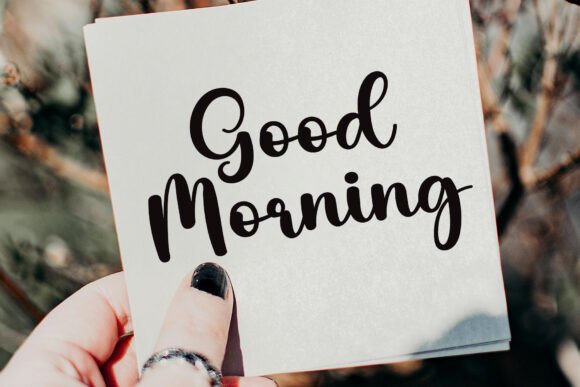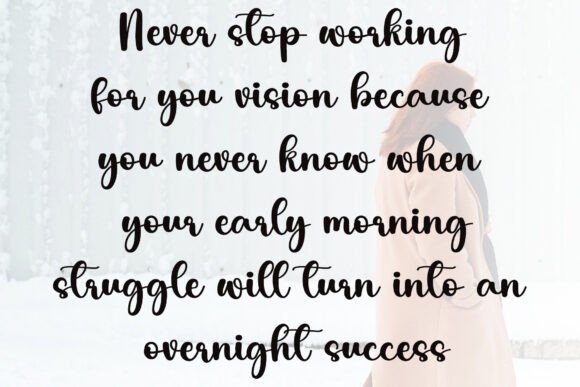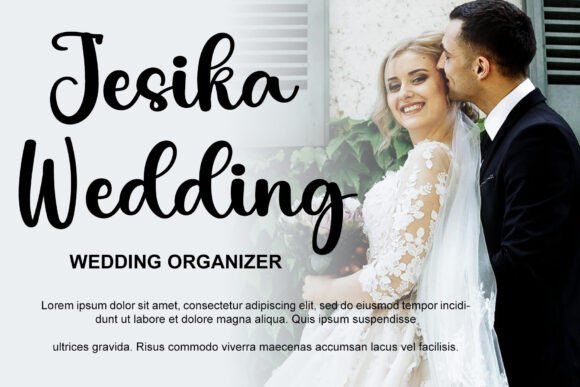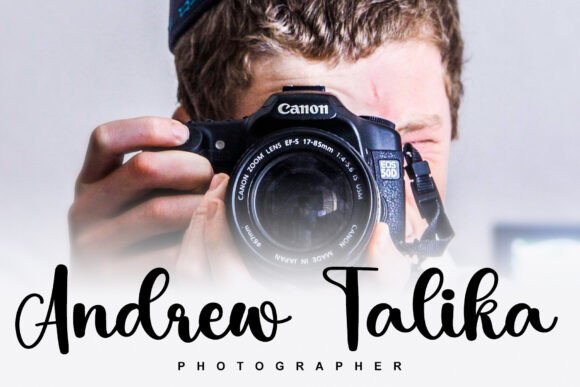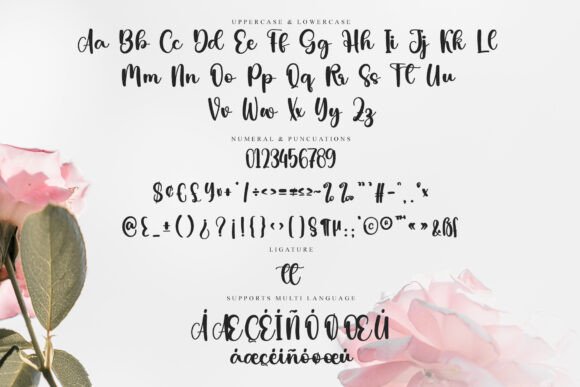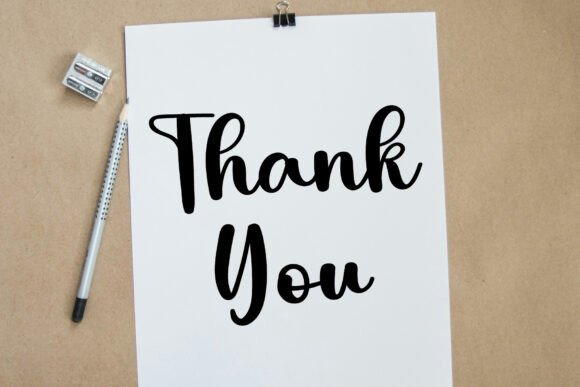
Gnomes Christmas Font: The Perfect Elegant and Delicate Handwritten Typeface for Your Design Needs
Are you looking for a font that exudes elegance and delicacy for your design projects? Look no further than the Gnomes Christmas Font! This beautiful handwritten typeface is perfect for a variety of design needs, including logos and branding, social media posts, advertisements, business cards, wedding invitations, product design, and more.
What Makes Gnomes Christmas Font Special?
Gnomes Christmas Font is an elegant and delicate handwritten typeface that is sure to add a touch of sophistication to any design project. Its unique and stylish lettering makes it perfect for designers and crafters who want to create beautiful and eye-catching designs. The font is highly versatile and can be used for a wide range of design needs, from logos and branding to social media posts and product design.
Features of Gnomes Christmas Font
So, what makes Gnomes Christmas Font so special? Here are some of its key features:
- Elegant and Delicate Handwritten Typeface: Gnomes Christmas Font is a beautiful handwritten typeface that exudes elegance and delicacy. Its unique lettering makes it perfect for designers and crafters who want to create sophisticated and eye-catching designs.
- PUA Encoded: The font is PUA encoded, which means you can access all of the glyphs and alternates with ease. This makes it easy to use and customize the font to suit your design needs.
- Highly Versatile: Gnomes Christmas Font is highly versatile and can be used for a wide range of design needs, including logos and branding, social media posts, advertisements, business cards, wedding invitations, product design, and more.
Uses of Gnomes Christmas Font
Gnomes Christmas Font is perfect for a variety of design needs, including:
- Logos and Branding: The font’s elegant and delicate lettering makes it perfect for logos and branding. It’s sure to add a touch of sophistication to your brand identity.
- Social Media Posts: Use Gnomes Christmas Font to create eye-catching social media posts that will grab the attention of your followers.
- Advertisements: The font’s unique lettering makes it perfect for advertisements. It’s sure to make your ads stand out from the crowd.
- Business Cards: Gnomes Christmas Font is perfect for business cards. Its elegant and delicate lettering makes it sure to leave a lasting impression on potential clients.
- Wedding Invitations: The font’s romantic and elegant lettering makes it perfect for wedding invitations. It’s sure to add a touch of sophistication to your wedding stationery.
- Product Design: Use Gnomes Christmas Font to create beautiful and eye-catching product designs. Its unique lettering makes it perfect for product labels, packaging, and more.
Why Choose Gnomes Christmas Font?
So, why choose Gnomes Christmas Font for your design needs? Here are just a few reasons:
- Unique and Stylish Lettering: The font’s unique and stylish lettering makes it perfect for designers and crafters who want to create beautiful and eye-catching designs.
- Elegant and Delicate: Gnomes Christmas Font is an elegant and delicate handwritten typeface that is sure to add a touch of sophistication to any design project.
- Highly Versatile: The font is highly versatile and can be used for a wide range of design needs.
In conclusion, Gnomes Christmas Font is a beautiful and elegant handwritten typeface that is perfect for a variety of design needs. Its unique and stylish lettering makes it perfect for designers and crafters who want to create beautiful and eye-catching designs. With its PUA encoding, highly versatile design, and ease of use, Gnomes Christmas Font is a must-have for any designer or crafter looking to add a touch of sophistication to their designs.